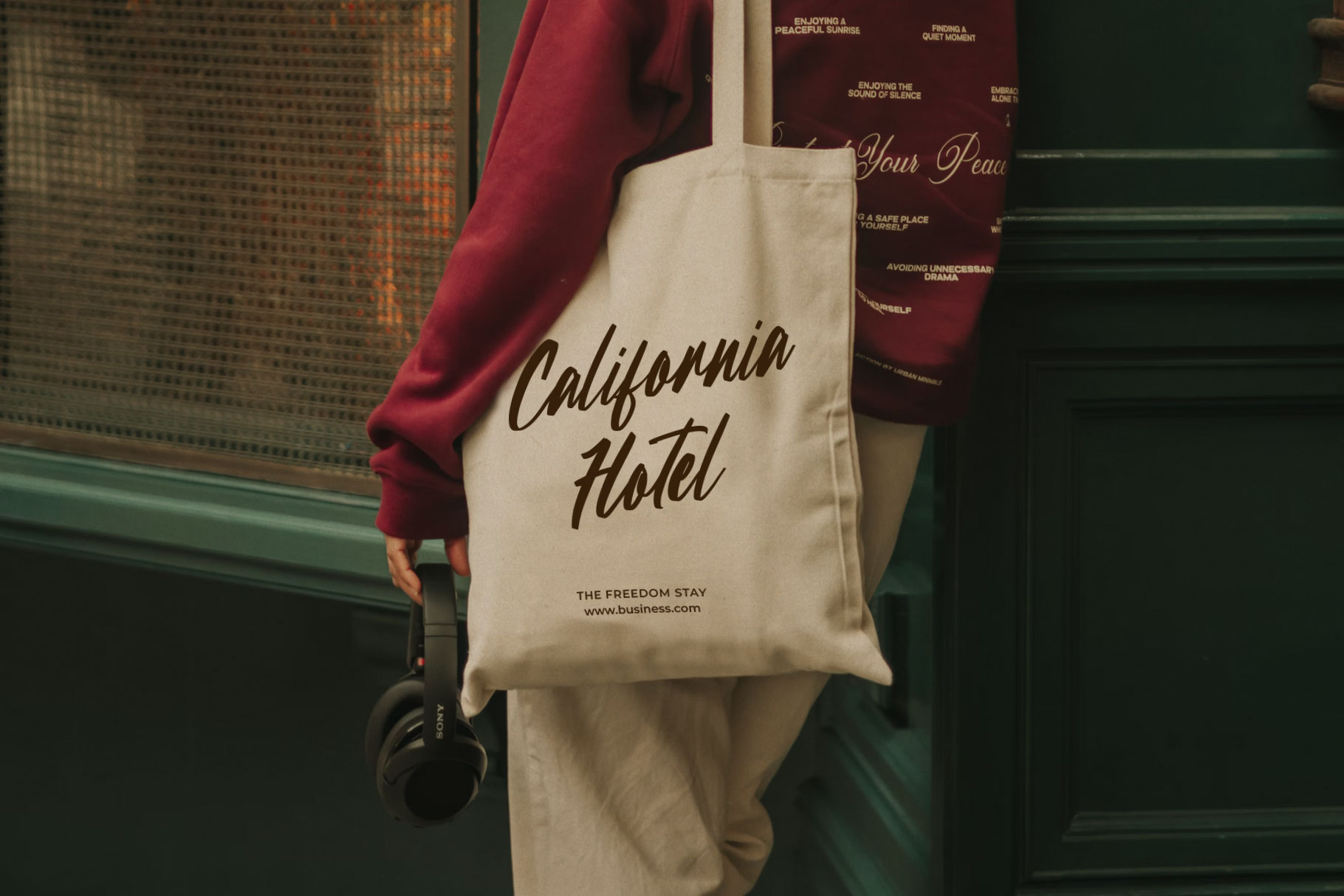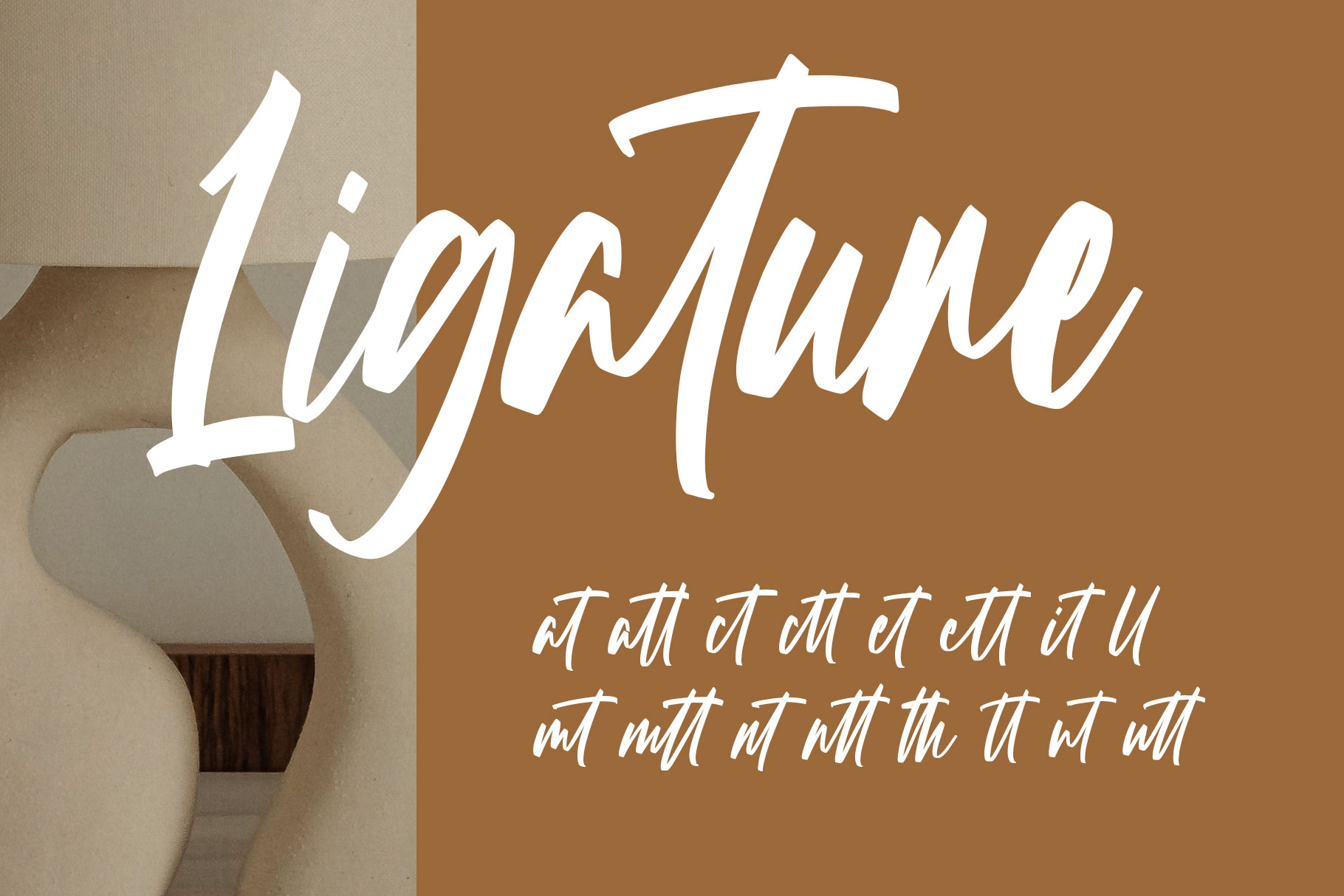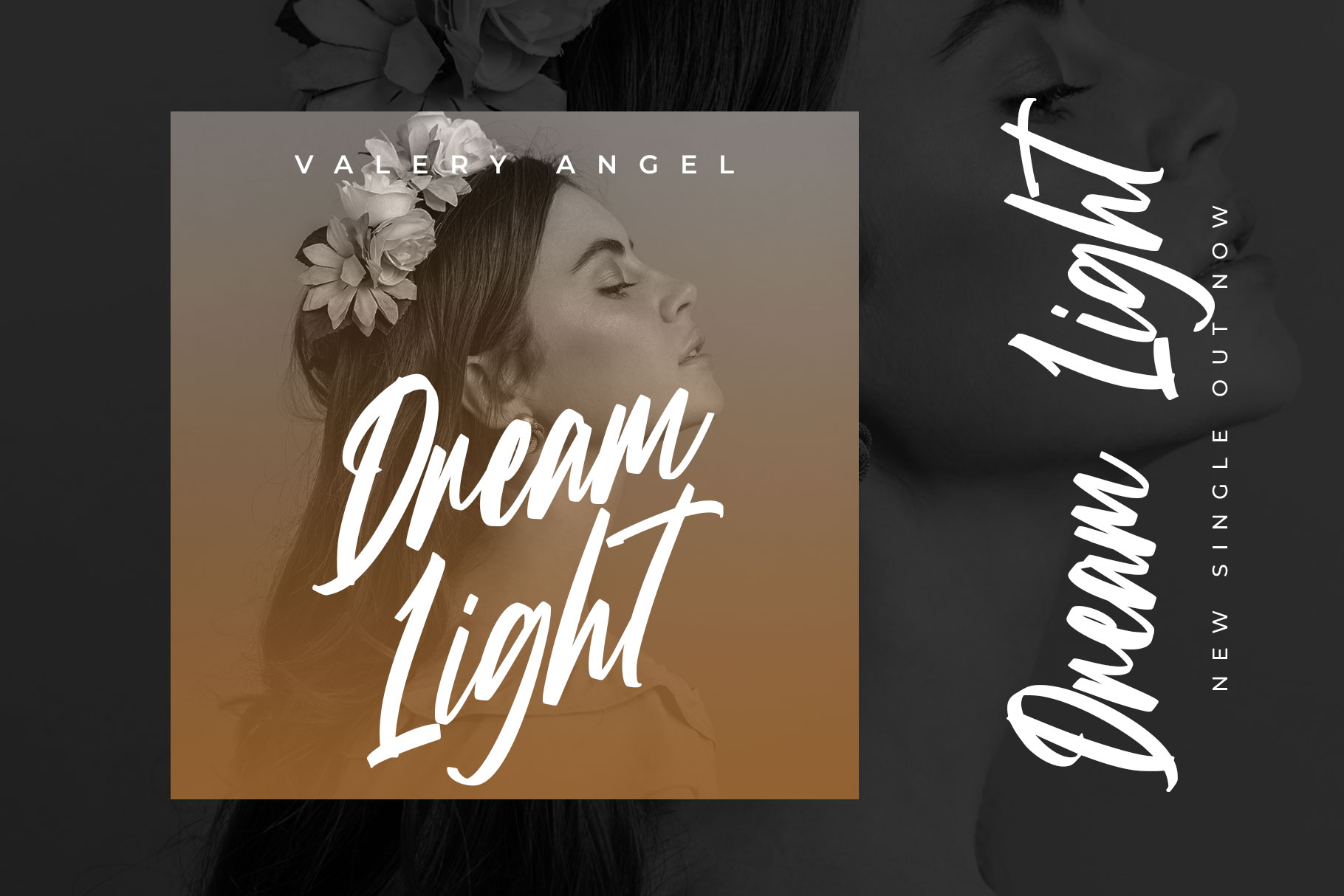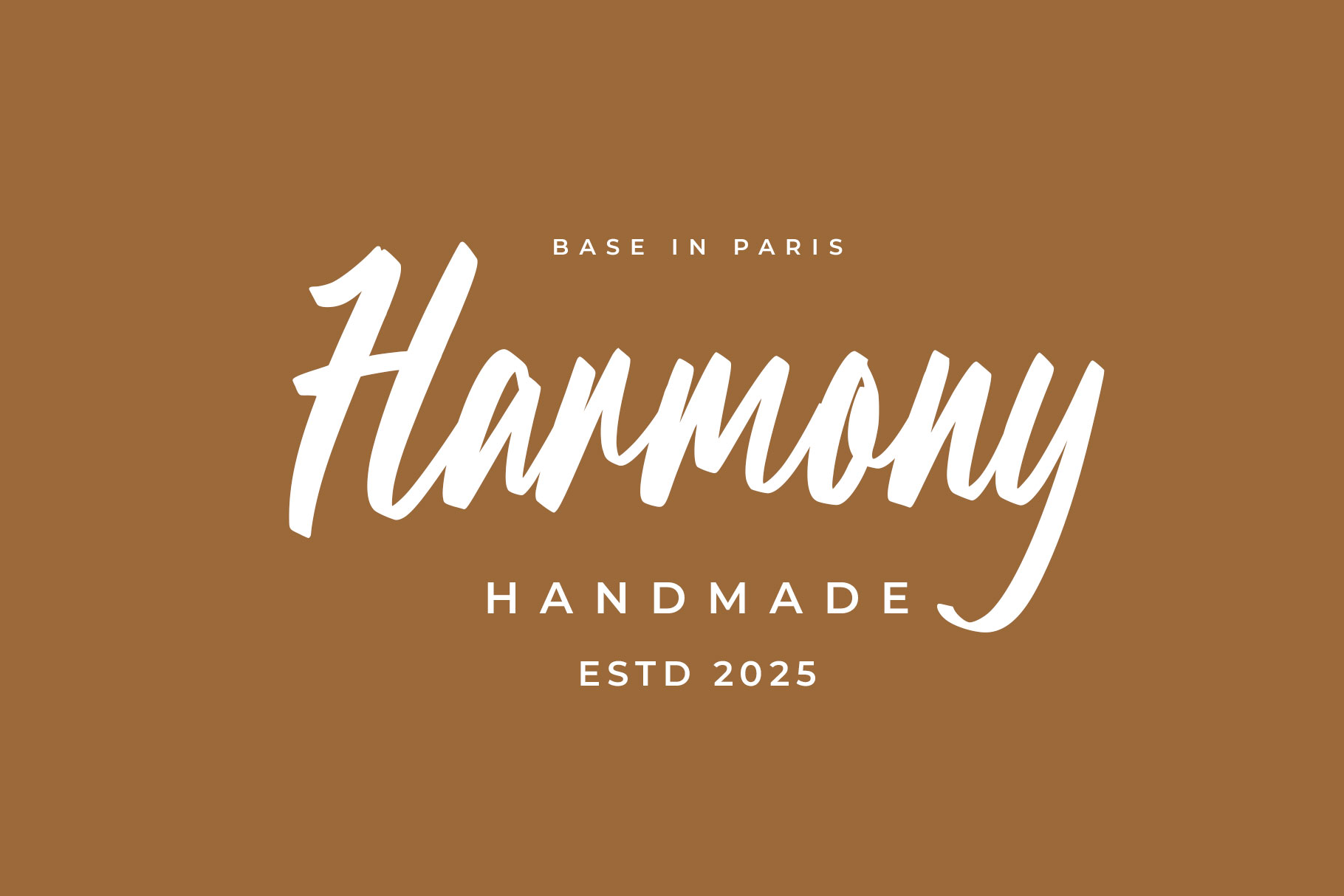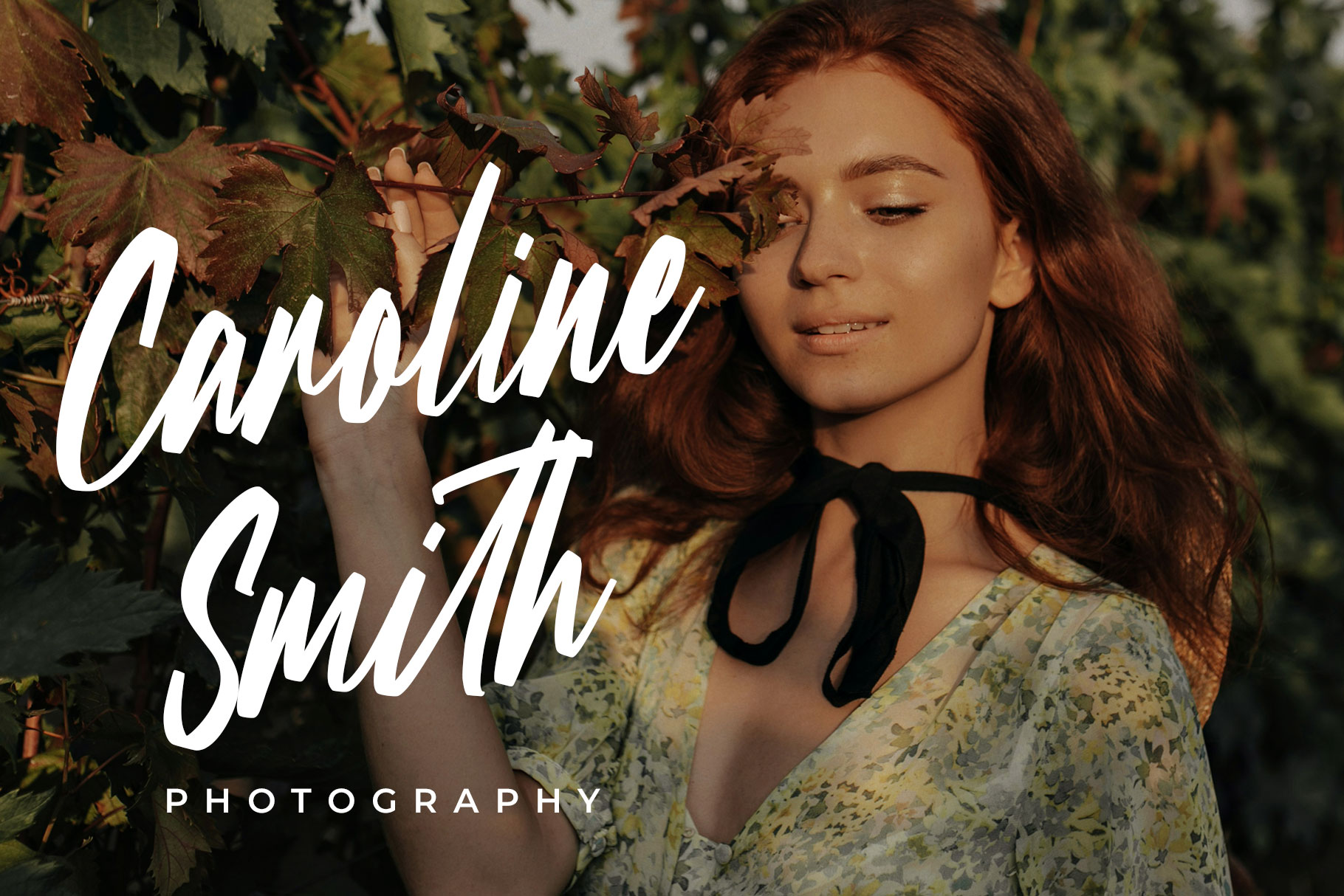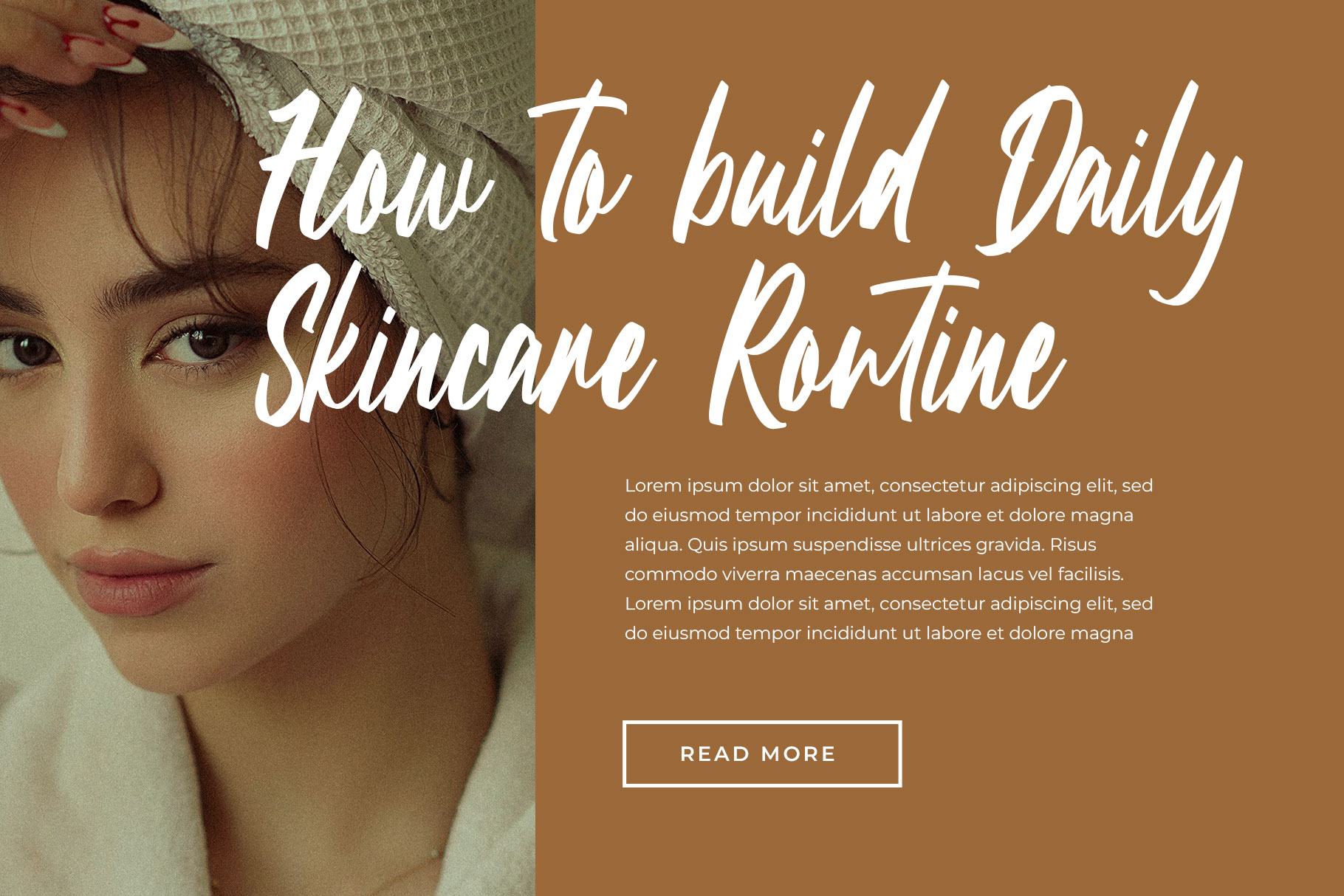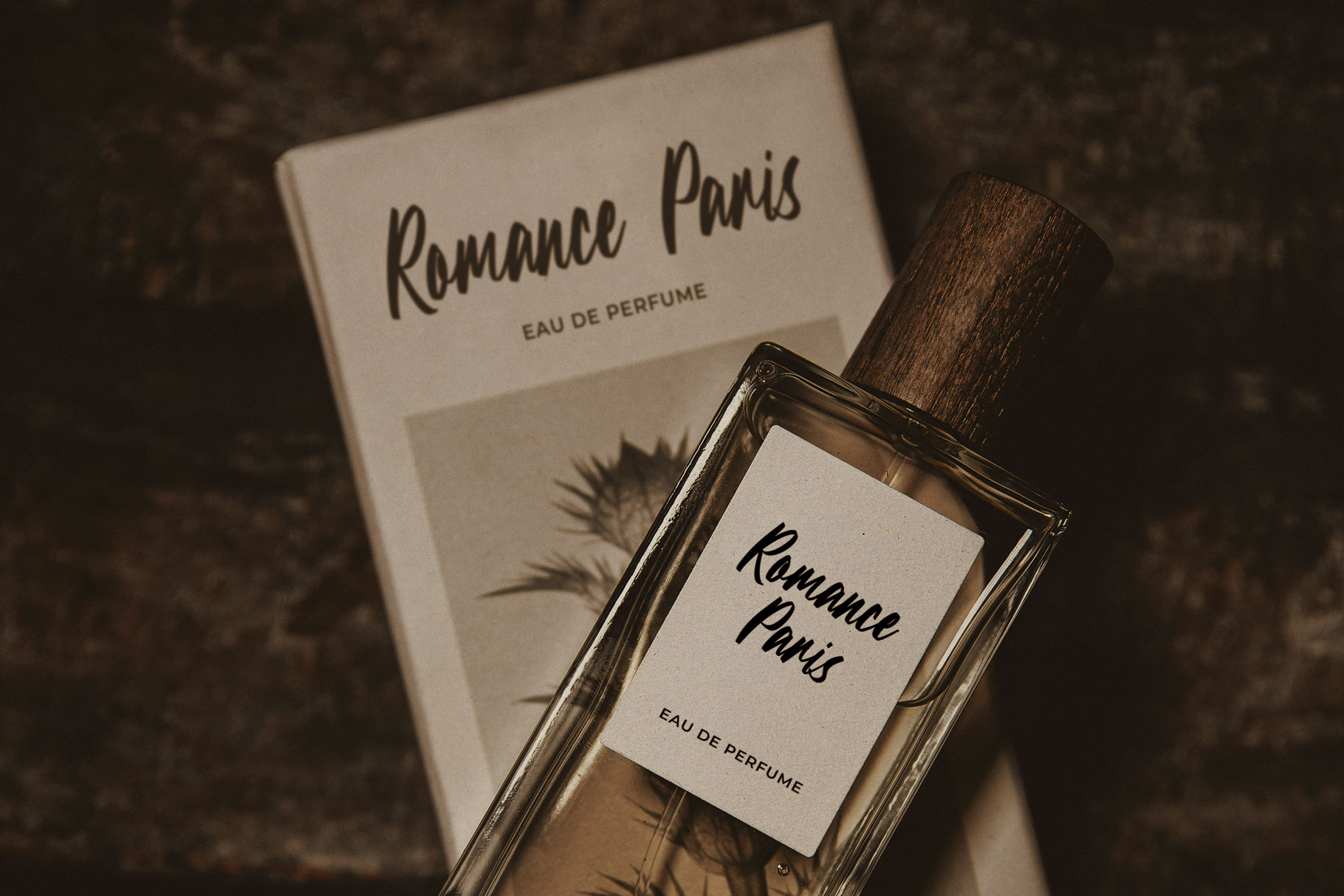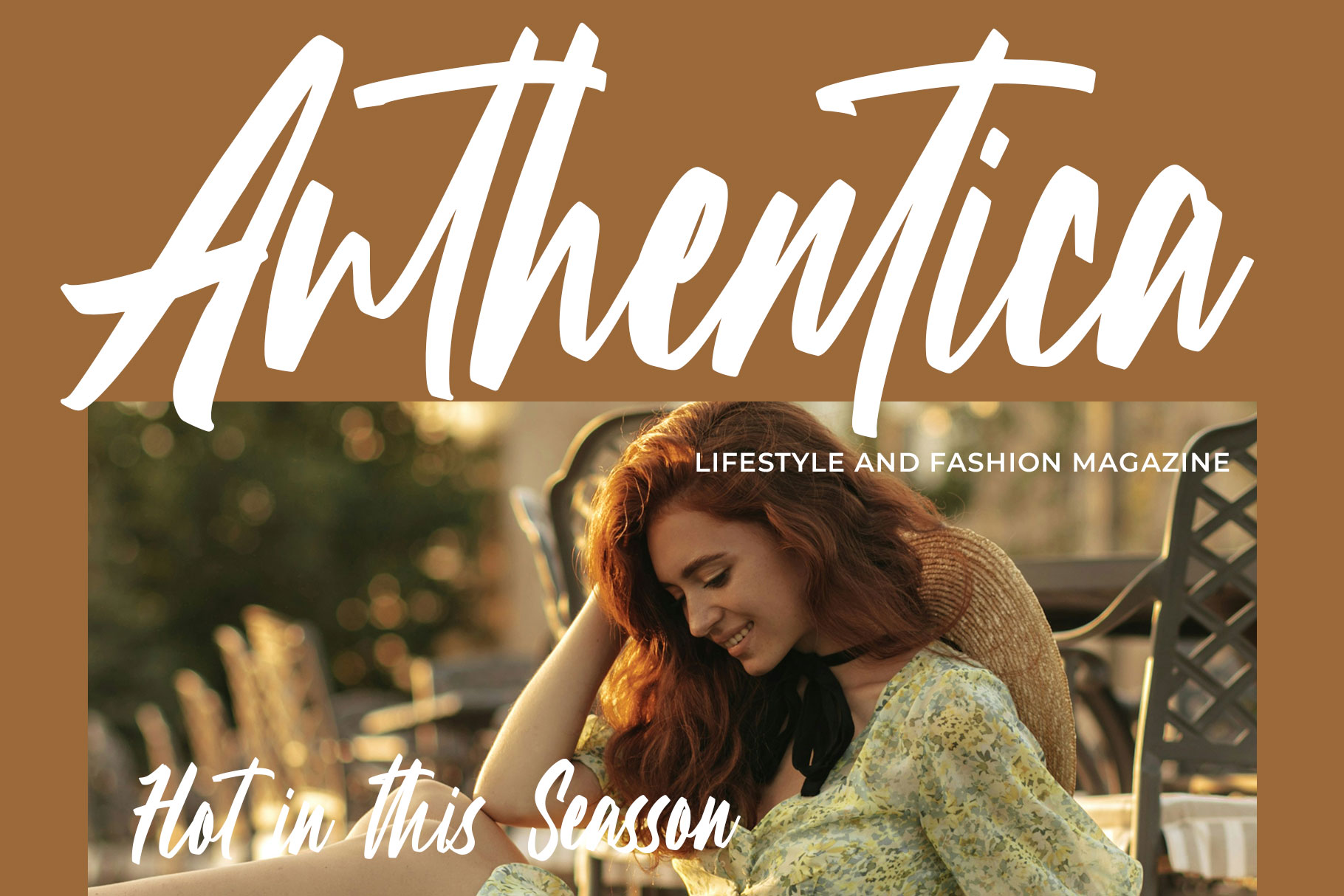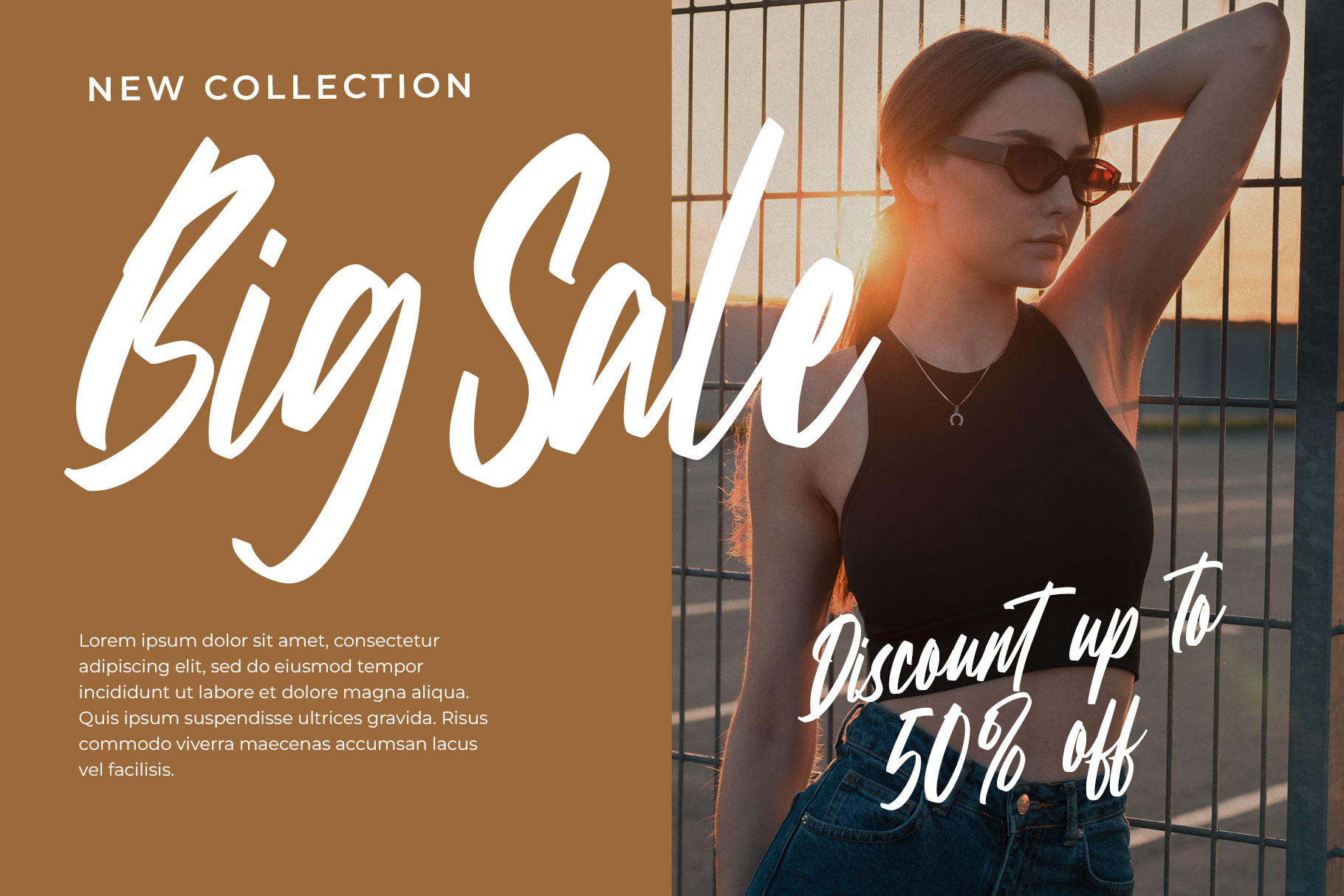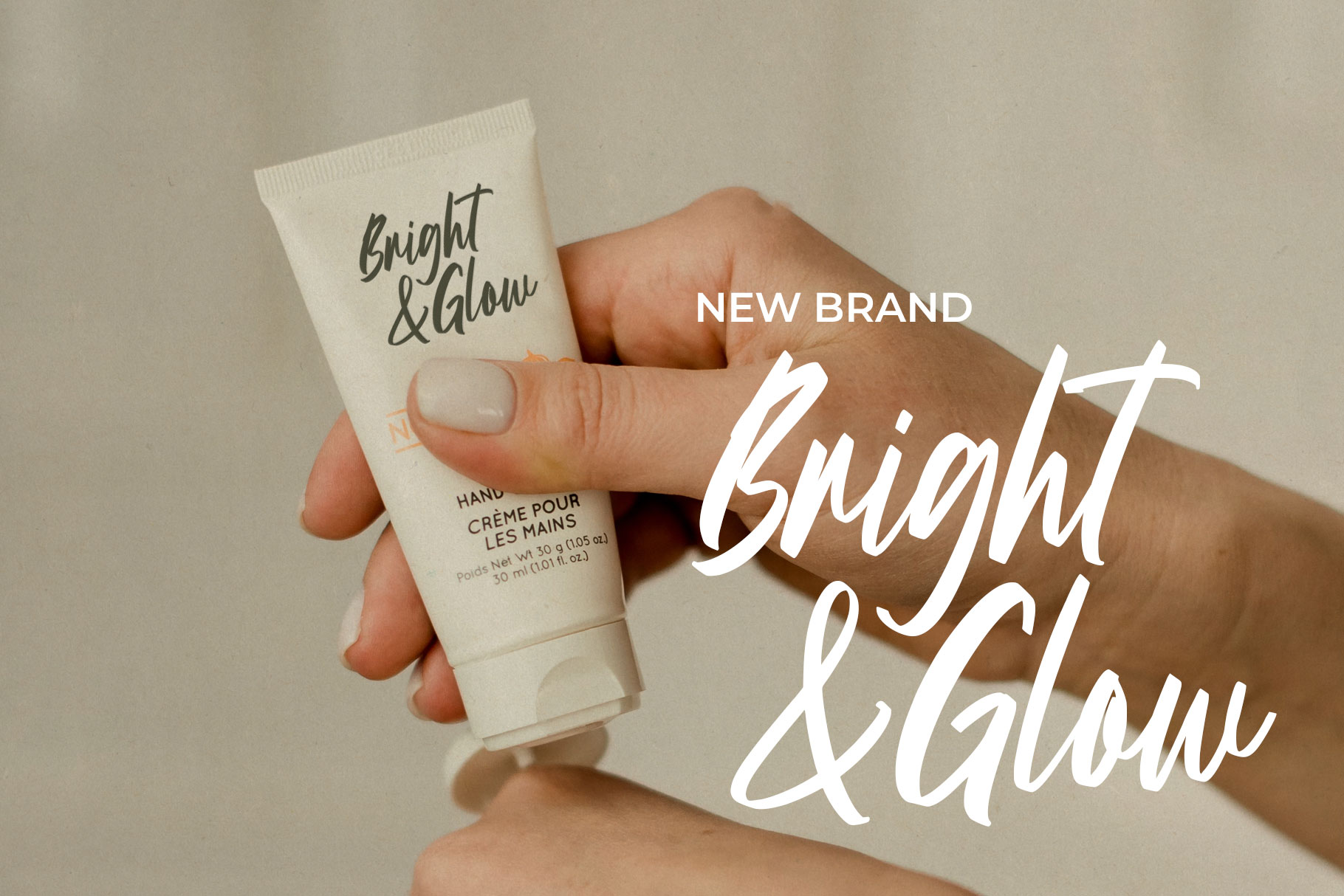
Ganethia Modern Script Font
Ganethia is modern script font make with love by rantautype studio. Ganethia bring stylish look to brighten up your design work. Ganethia is a perfectly choice for any creative endeavor, creating, modern, lifestyle design such as logotype, title, cover, branding, invitations, wedding designs, display and magazine, social media posts, advertisements, printed quotes, product packaging, corporate brand, product designs, labels, photography, watermarks, special events and any other project with modern touch.